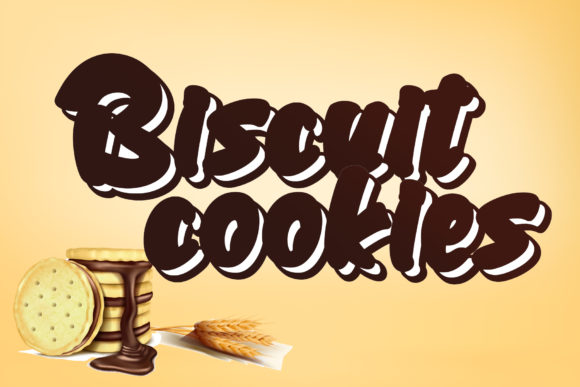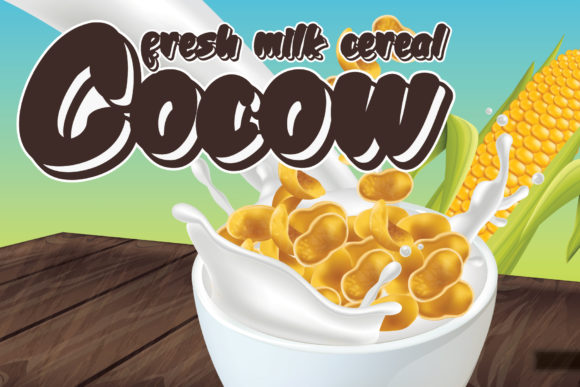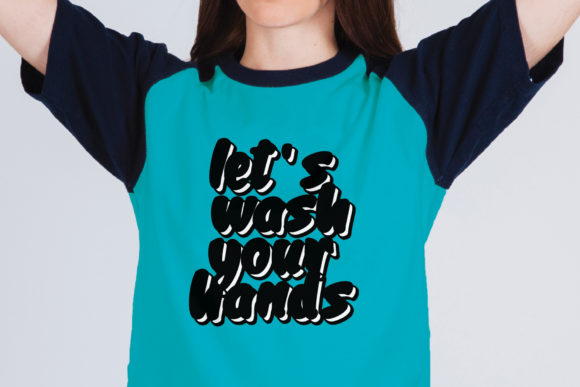
Introduction to Cleanliness Power Font
Cleanliness Power is a bold script that looks elegant and classy.
It will add a charming touch to anything project This font is PUA encoded which means you can access all of the cute glyphs and swashes with ease It also features a wealth of special features including alternate glyphs and ligatures.
Key Features of Cleanliness Power Font